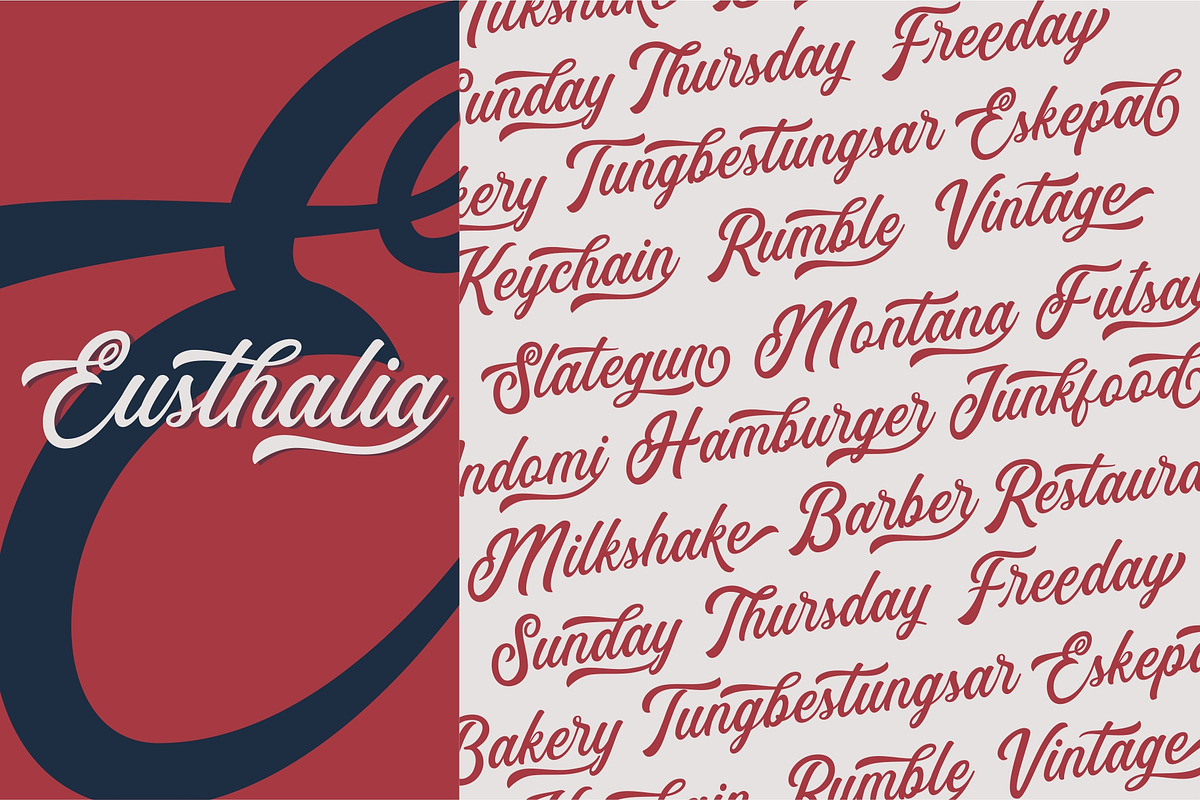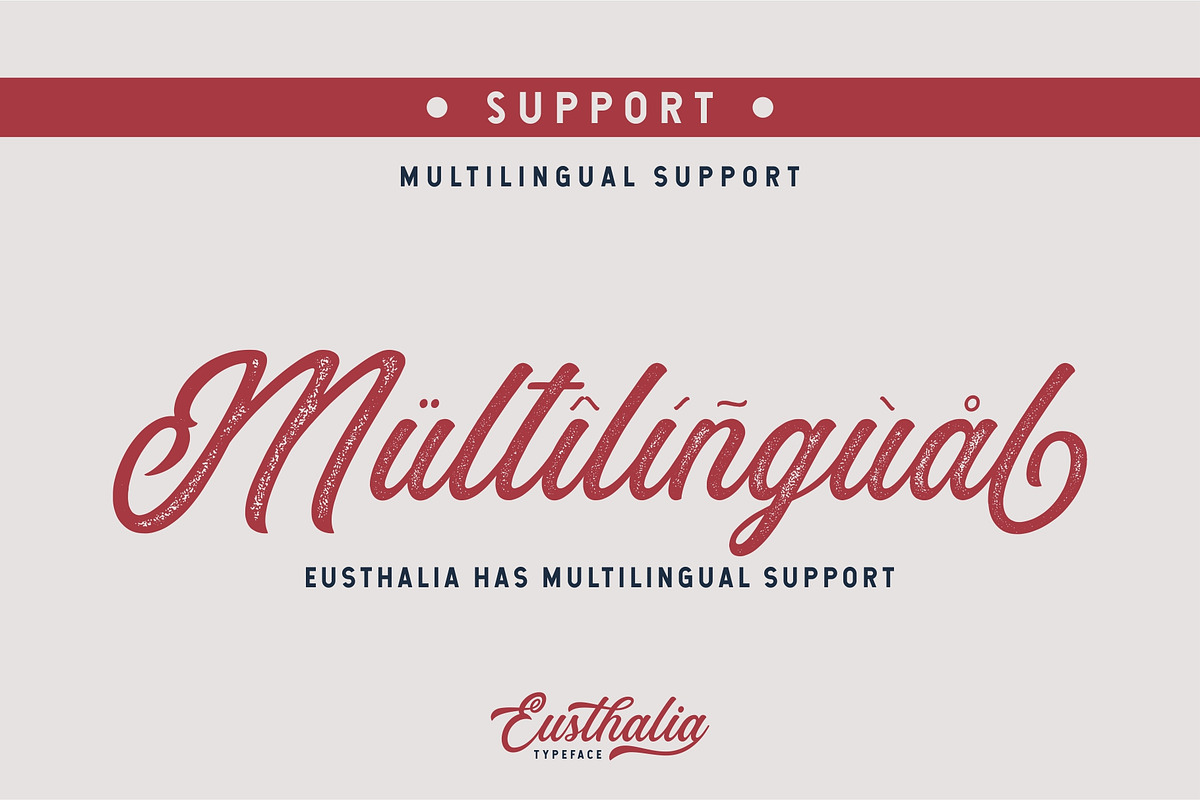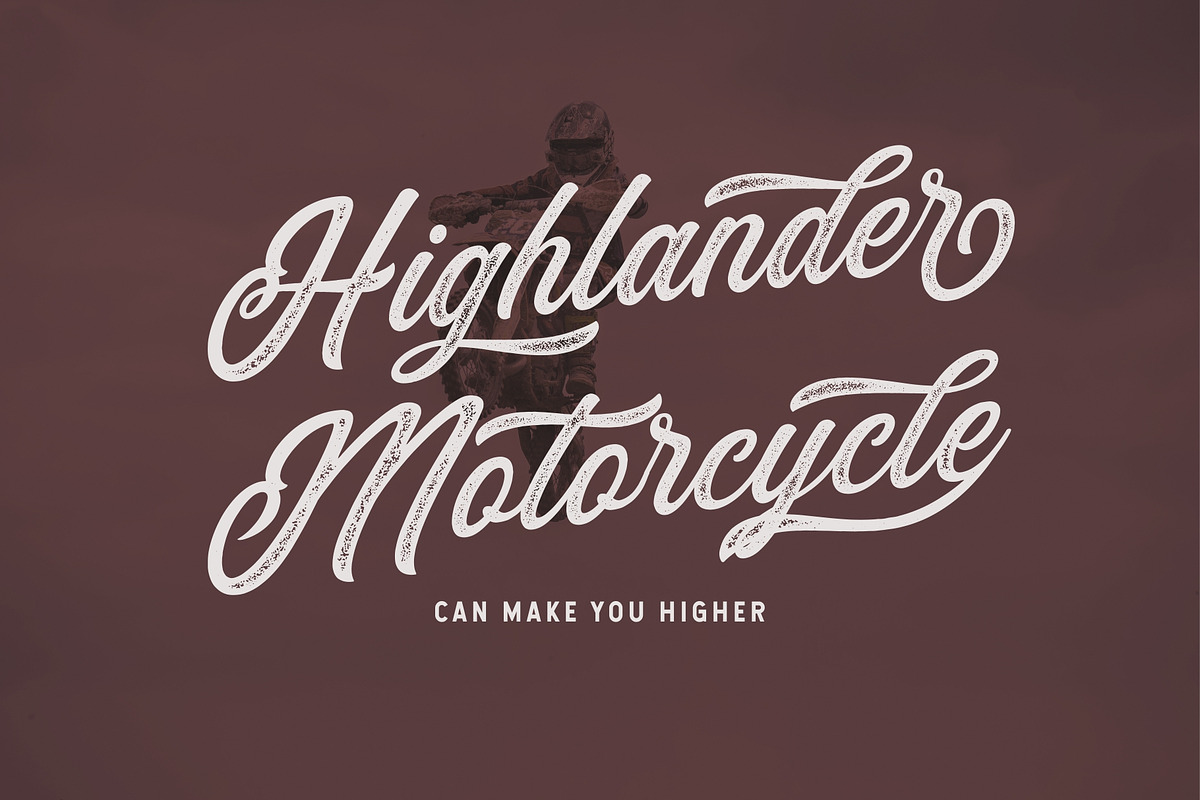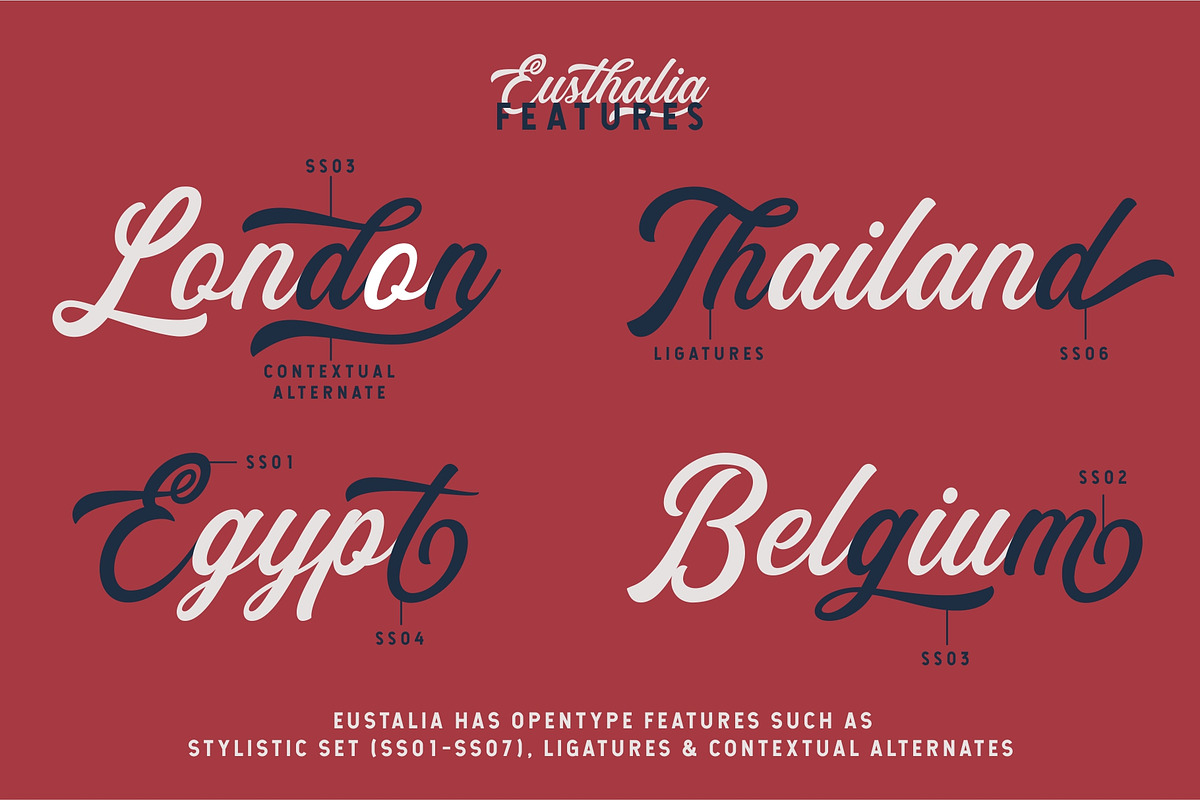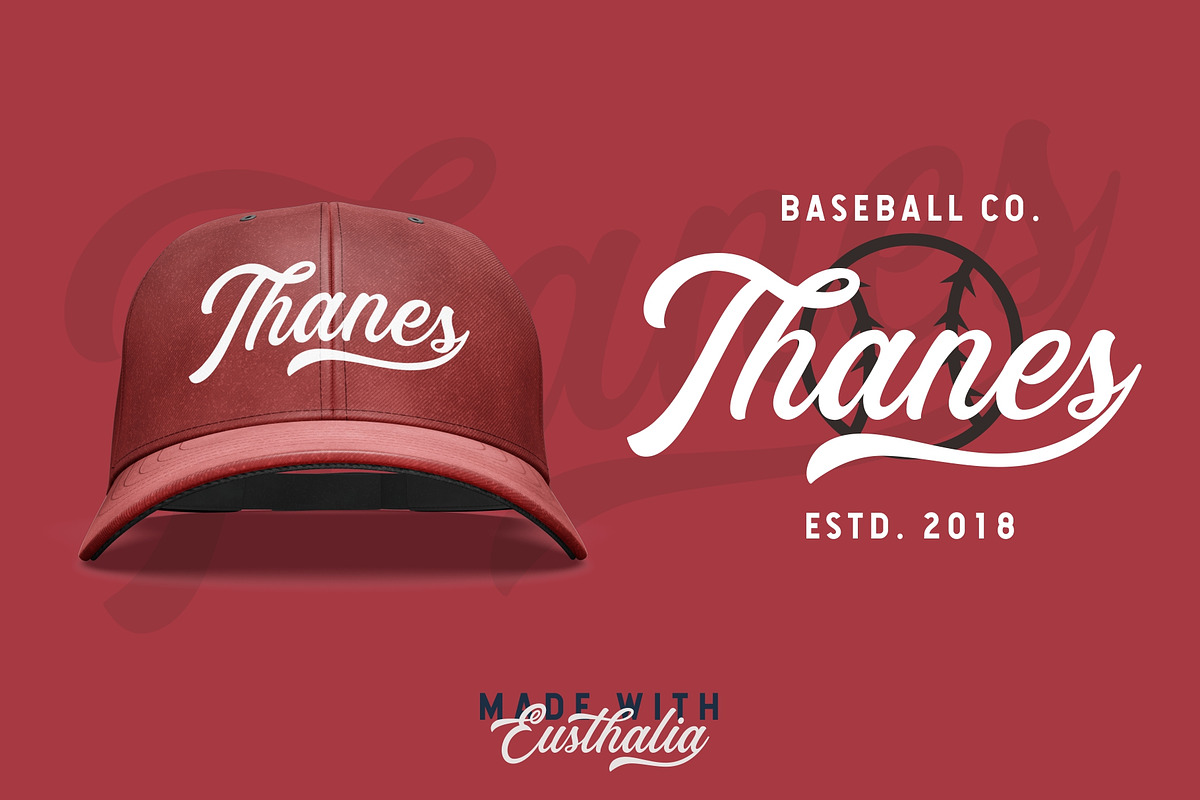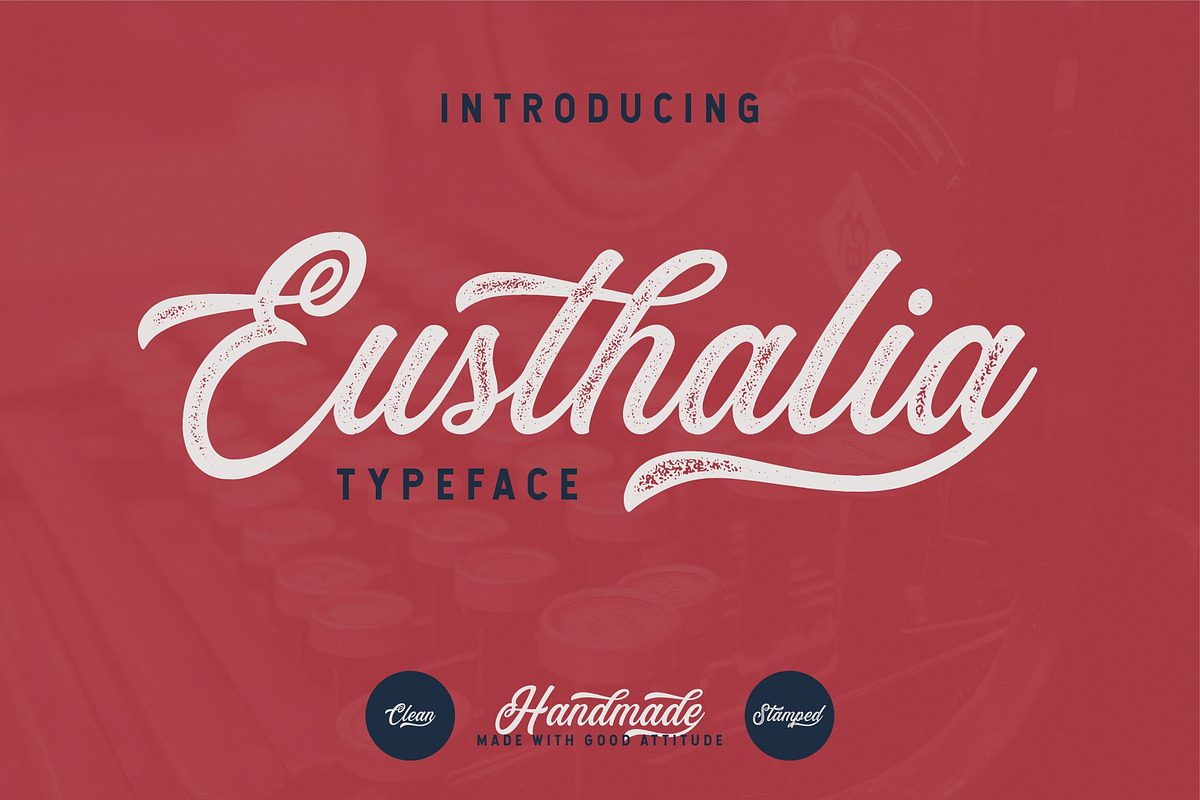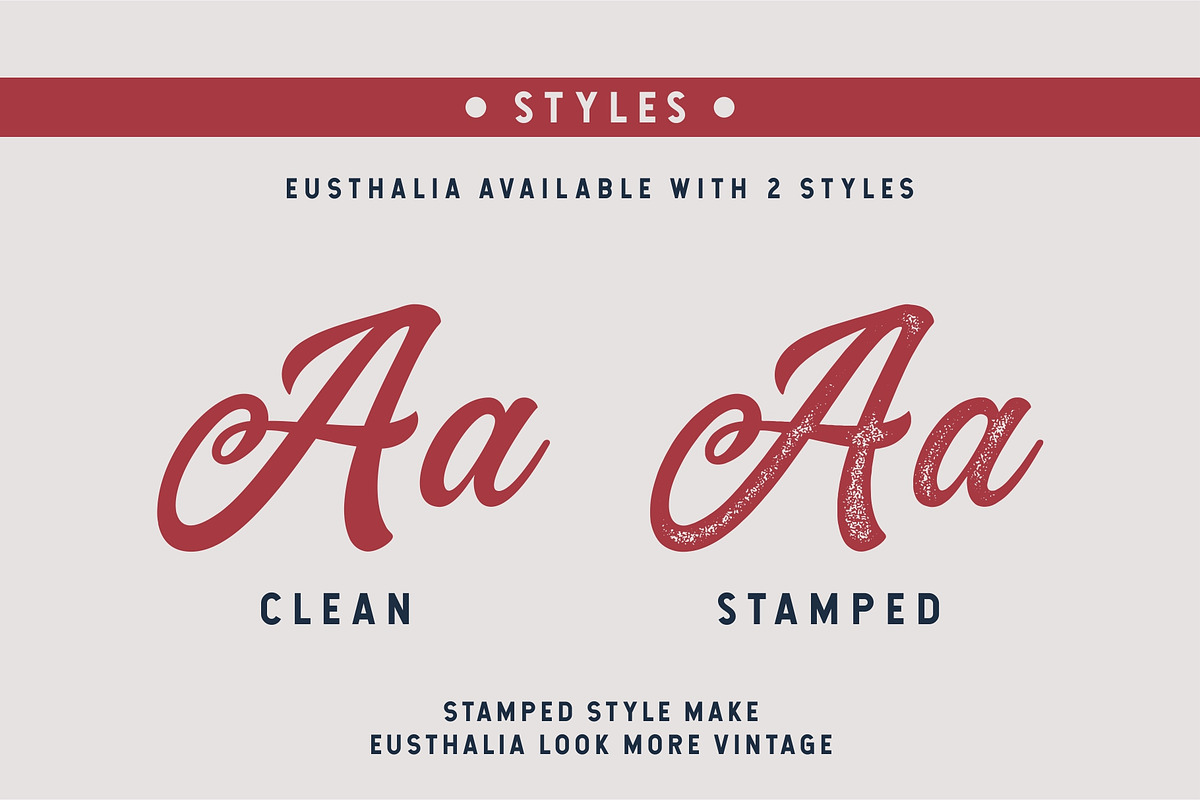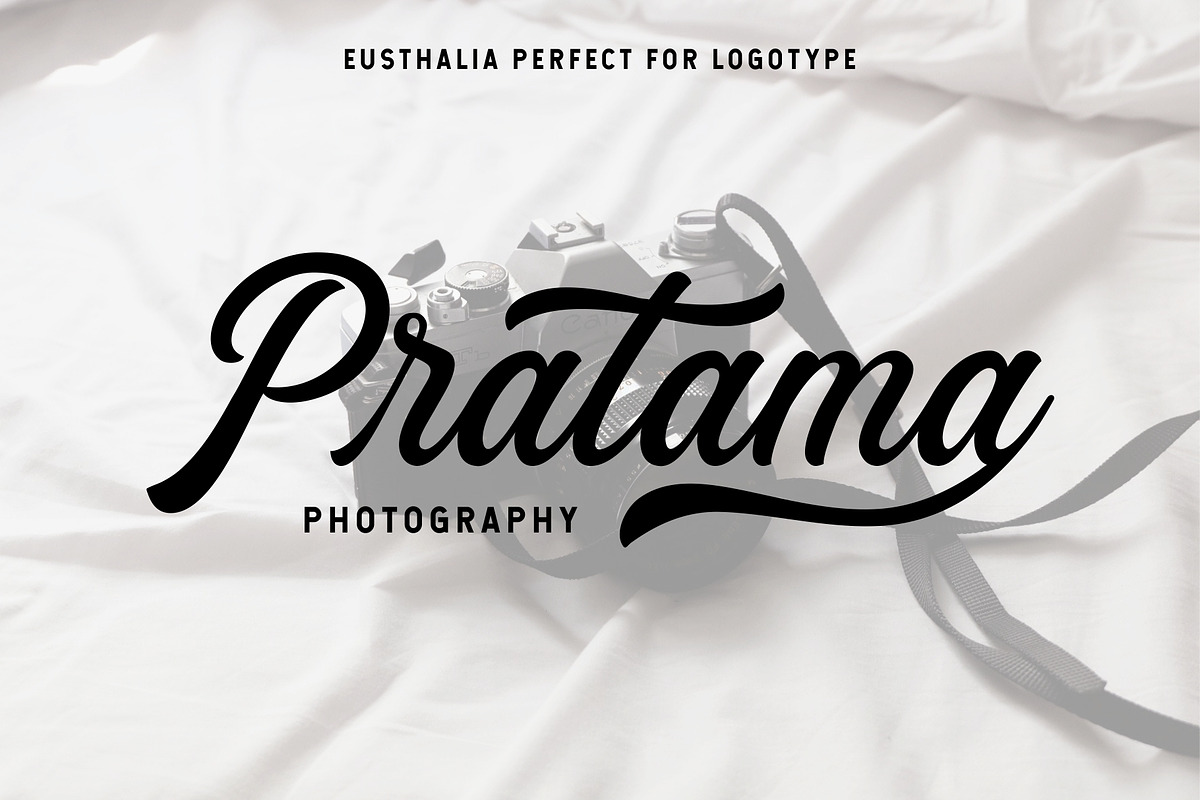
Eusthalia Typeface
Hello brother and sister! We introduce our new product called Eusthalia Typeface.
Eusthalia Typeface is a script font which has two styles, Clean and Stamped. With those kind of styles, Eusthalia Typeface can be use in vintage designs. Eusthalia Typeface also has a standart Multilingual Support.
Eusthalia Typeface is great for Logotype, Branding Design, Logo Design, Digital Lettering Arts, T-Shirt/Apparel, Poster, Magazine, Signs, Advertising Design, and any vintage design needs.
Eusthalia Typeface Features :
Upper and Lowercase Standard Characters, Punctuation, Numerals.
Opentype Features such as Standard Ligature, Contextual Alternates and Stylistic Set (ss01 - ss07).
Why Eusthalia Typeface is worth a look
Eusthalia Typeface by YdhraStudio fits naturally into Branding, posters, packaging, typography.